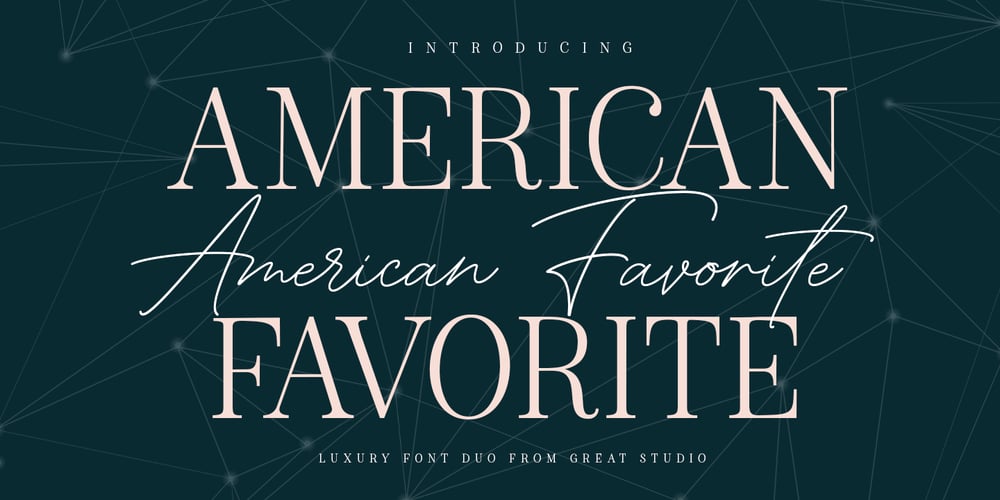
American Favorite Script
American Favorite Script font
American Favorite Script Font Family was designed by Mulkan Nazir and published by Great Studio. American Favorite Script contains 3 styles and family package options. American Favorite is a luxury font. which comes with a combination of modern and elegant fonts, namely serif and signature style. You can combine it to make beautiful typography. This hand display style makes it perfect for use in all your design projects be it logos, labels, packaging designs, blog titles, posters, wedding designs, social media posts, Instagram designs, card invitations, art quotes, home decor, book / cover titles , etc. Already matched up and ready to be used together for your next design! Here’s what’s included : -American Favorite Script Regular / Bold-Thin and realistic signature fonts containing 52 automatic ligatures, lowercase letters, uppercase letters, all punctuation & numbers American Favorite Serif -An all-caps Serif font containing uppercase, all punctuation & numerals. Language Support • Supports the following languages; English, French, Italian, Spanish, Portuguese, German, Swedish, Norwegian, Danish, Dutch, Finnish, Indonesian, Malay, Hungarian, Polish, Croatian, Turkish, Romanian, Czech, Latvian, Lithuanian, Slovak, Slovenian.I hope you enjoy this font. Thank you for your purchase!